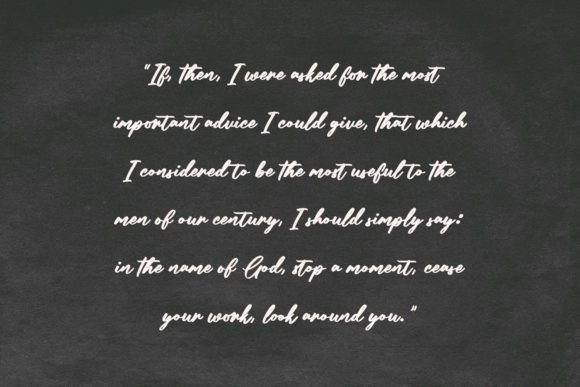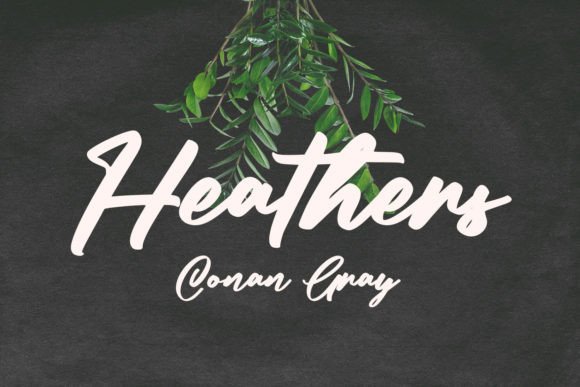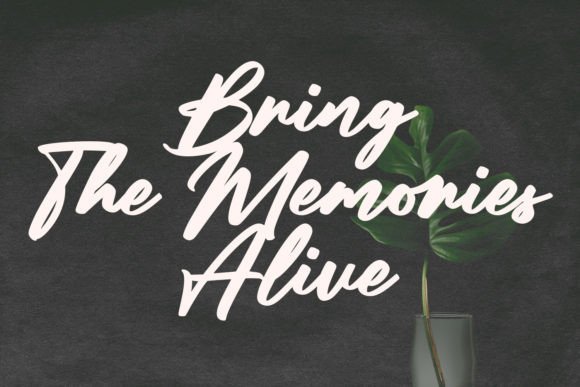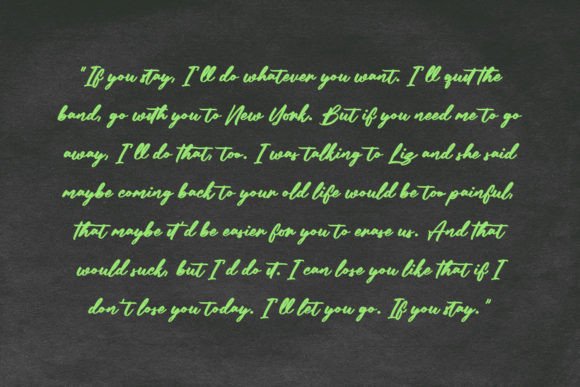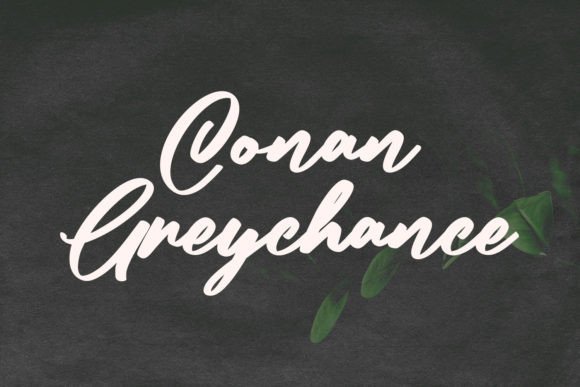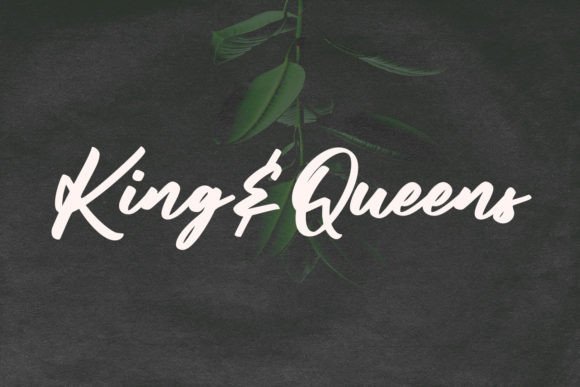
Introducing Algrowth Font: Elevate Your Creations with a Casual and Bold Script Font
Are you a designer or crafter looking for a font that can add a touch of personality to your creations? Look no further than Algrowth Font, a casual and bold script font that is sure to become an incredible asset to your font library. With its unique blend of elegance and playfulness, Algrowth Font is perfect for a wide range of projects, from branding and advertising to packaging and digital media.
The Characteristics of Algrowth Font
Algrowth Font is a script font that boasts a bold and casual style, making it perfect for designers who want to add a touch of whimsy to their creations. The font features:
- Unique lettering style: Algrowth Font has a distinctive lettering style that is both elegant and playful. The font features flowing lines and curves that give it a dynamic and energetic feel.
- Bold and casual: The font is bold and casual, making it perfect for designs that require a touch of personality. Whether you’re creating a logo, a brochure, or a social media post, Algrowth Font is sure to make a statement.
- Highly legible: Despite its bold and playful style, Algrowth Font is highly legible, even at small sizes. This makes it perfect for a wide range of applications, from business cards to billboards.
The Benefits of Using Algrowth Font
So why should you choose Algrowth Font for your next project? Here are just a few benefits of using this amazing font:
- Elevate your creations: Algrowth Font has the potential to elevate any creation, from a simple logo to a complex branding campaign. Its unique style and bold personality are sure to make your designs stand out.
- Versatile: Algrowth Font is incredibly versatile, making it perfect for a wide range of projects. Whether you’re creating a website, a brochure, or a social media post, this font is sure to fit the bill.
- Easily customizable: Algrowth Font is easily customizable, allowing you to tailor it to your specific needs. Whether you want to change the color, size, or style of the font, you can do it with ease.
How to Use Algrowth Font in Your Designs
Using Algrowth Font in your designs is easy. Here are a few tips to get you started:
- Pair it with other fonts: Algrowth Font pairs well with other fonts, including serif and sans-serif fonts. Experiment with different combinations to find the one that works best for your design.
- Use it for headlines: Algrowth Font is perfect for headlines, where its bold and playful style can really shine. Use it to grab attention and draw the reader in.
- Experiment with colors: Algrowth Font looks great in a wide range of colors, from bold and bright to subtle and muted. Experiment with different colors to find the one that works best for your design.
In conclusion, Algrowth Font is a casual and bold script font that is sure to become an incredible asset to your font library. With its unique blend of elegance and playfulness, it’s perfect for a wide range of projects, from branding and advertising to packaging and digital media. Whether you’re a designer or crafter, Algrowth Font is sure to elevate your creations and help you stand out from the crowd.